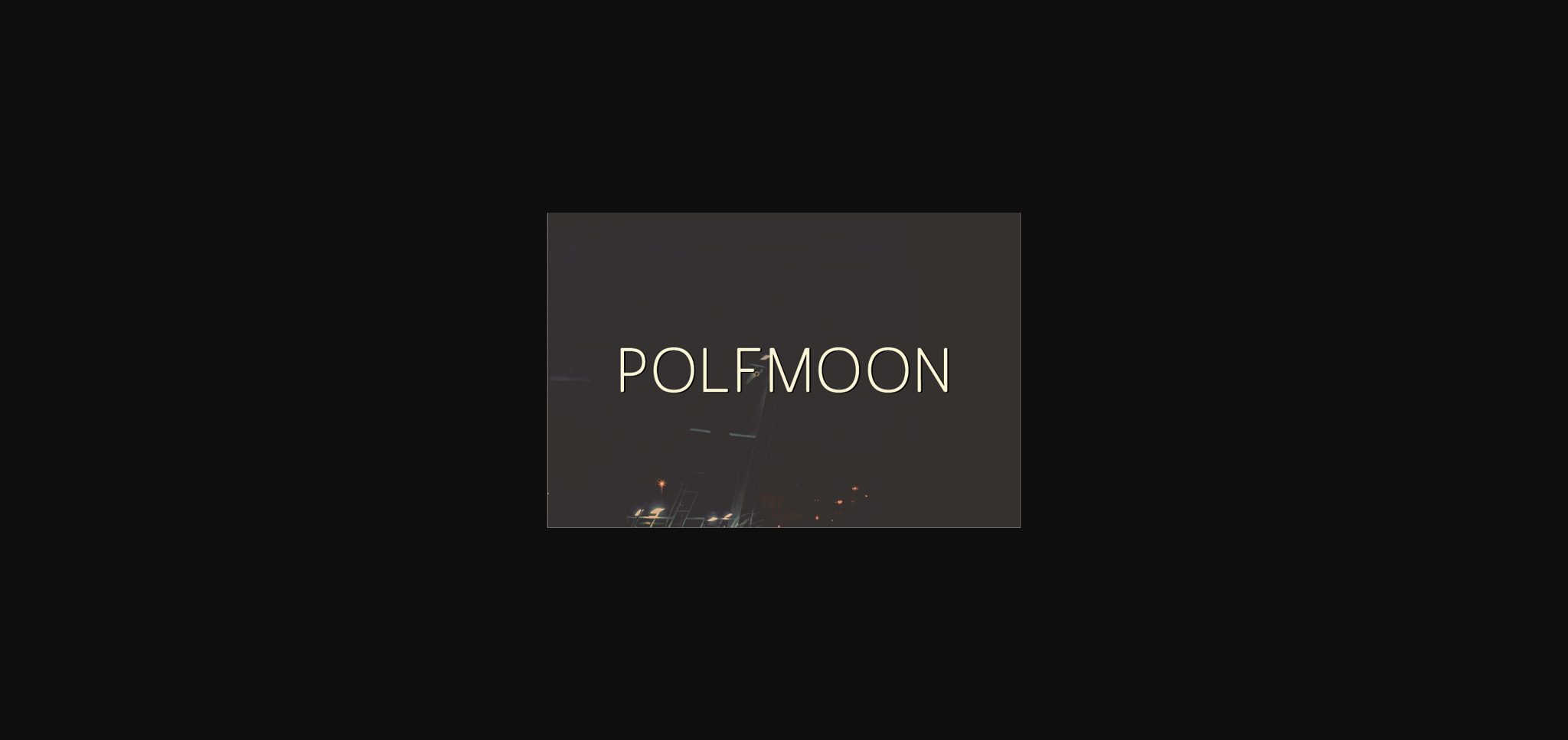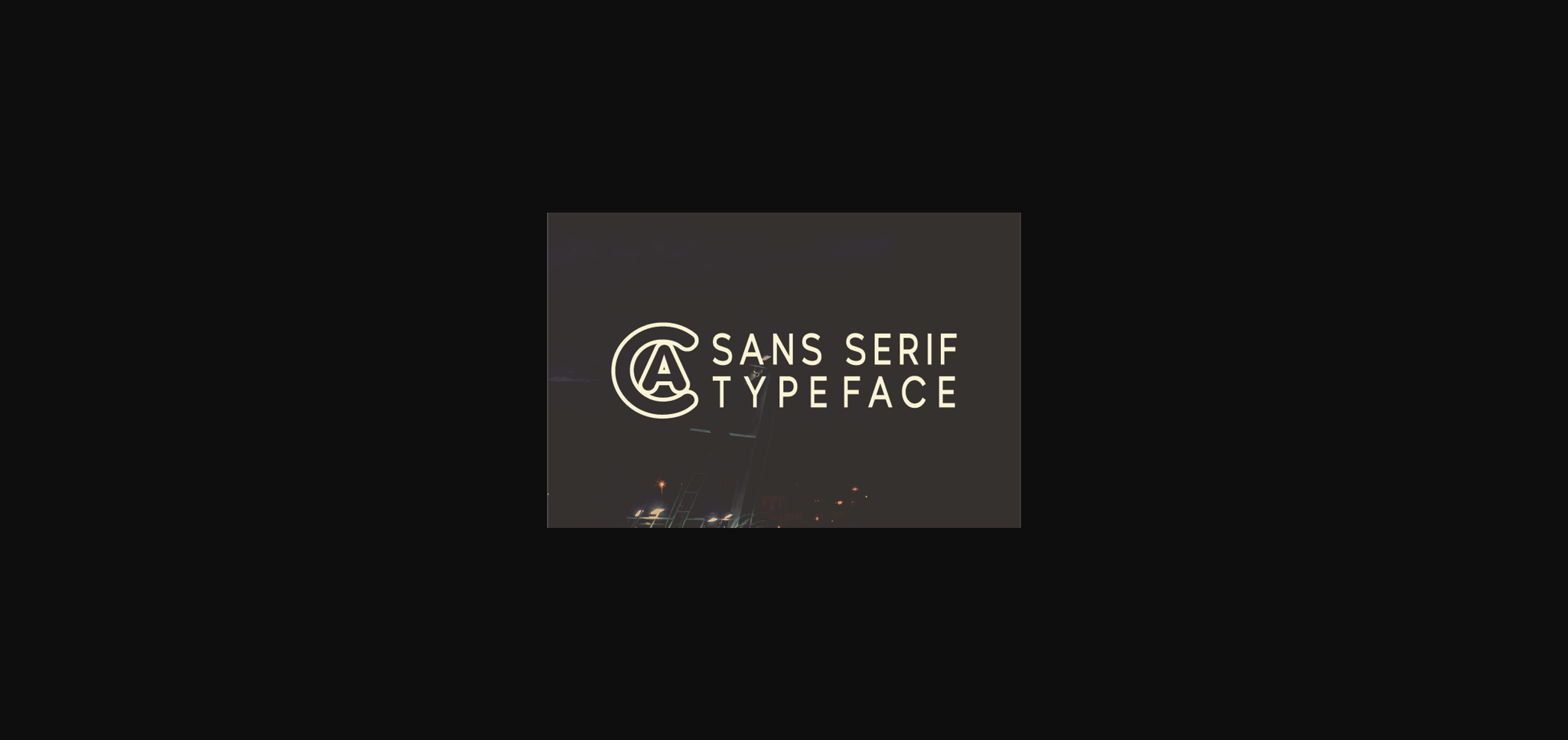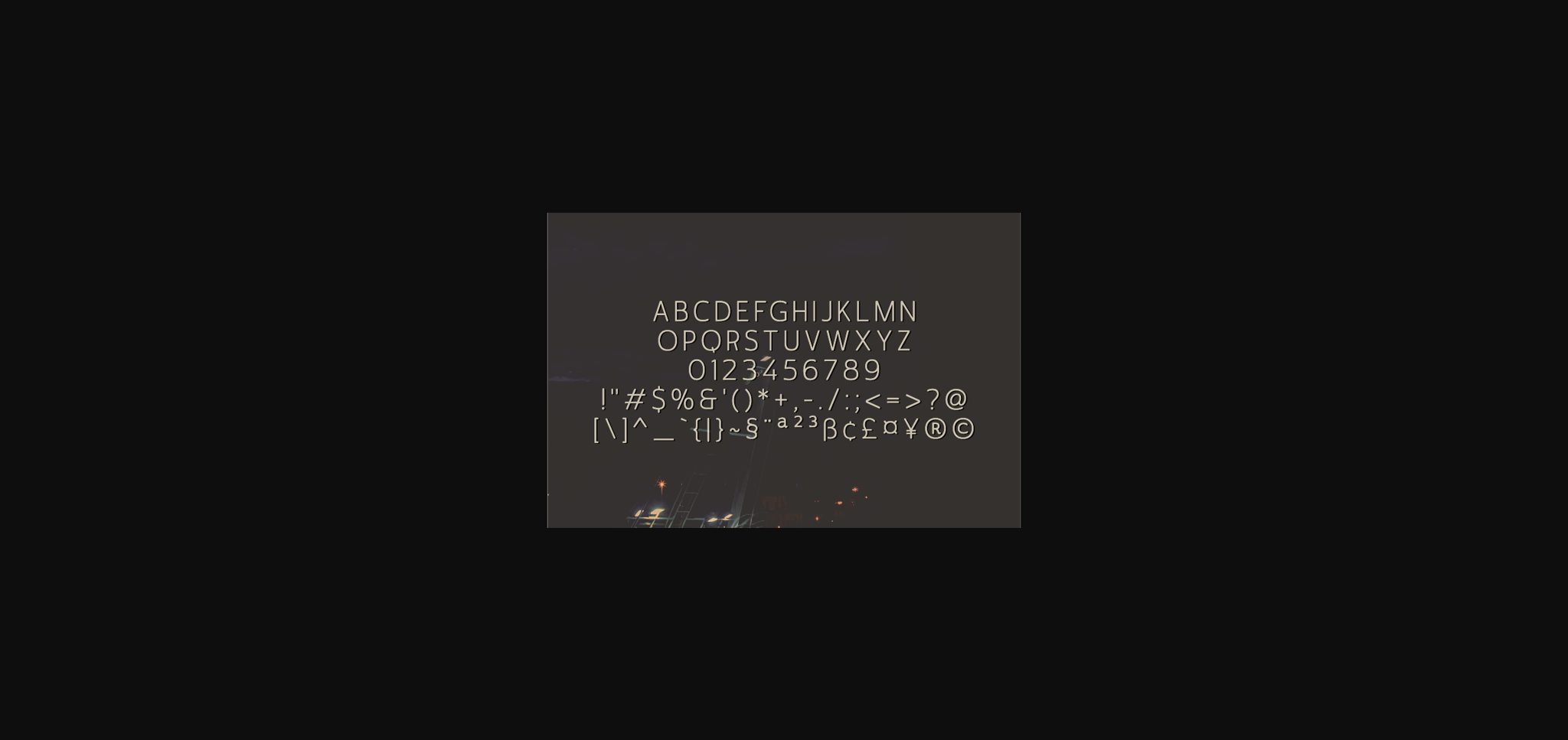
About Polfmoon Font
Polfmoon is a modern, thin and classy sans serif font. Suitable to a wide variety of designs due to its neat style, this font has the potential to become your favorite go-to font, no matter the occasion!